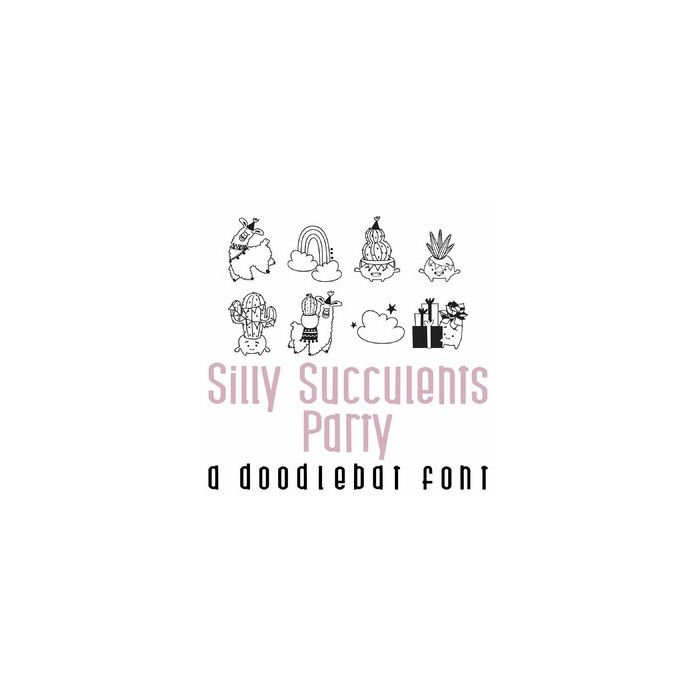
This adorable doodlebat font features 26 cute succulents, llamas, rainbows, and puns perfect for cards, crafts, gifts, decor, planner stickers, scrapbook pages and more!